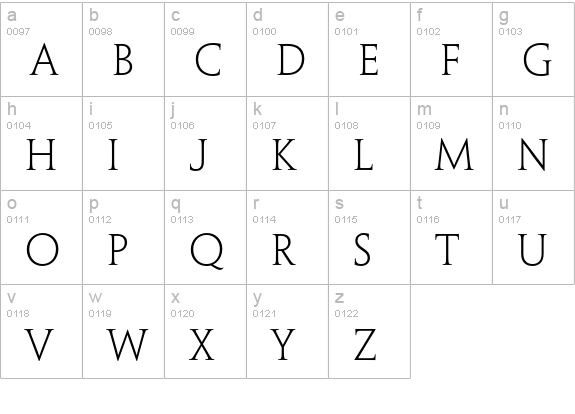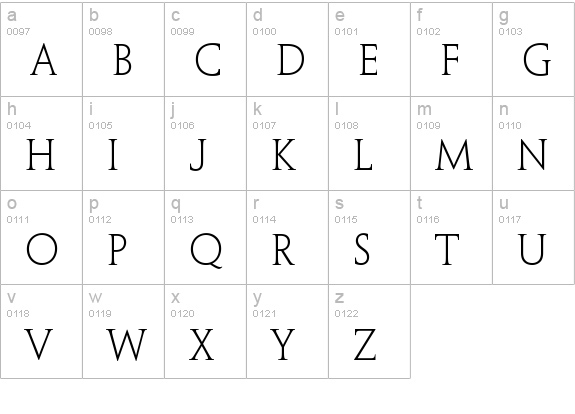
Penumbra Serif Std Light Font Details
Penumbra Serif Std Light is a refined, elegant variant in the Penumbra typeface family \xE2\x80\x94 well suited to elegant body text, refined sub-headings, and luxury branding.
Penumbra Serif Std Light is an elegant and sophisticated font that exudes a sense of timeless beauty. Its delicate serifs and slender letterforms create an air of refinement and grace, making it perfect for projects that require a touch of sophistication. This font's light weight adds a subtle elegance to any design, making it ideal for creating stunning headlines, logos, and branding materials. Its clean and minimalistic aesthetic ensures that it remains legible even at smaller sizes, making it versatile for both print and digital applications. Penumbra Serif Std Light offers a unique combination of classic charm and contemporary appeal. Its smooth curves and balanced proportions make it pleasing to the eye, while its subtle details add a touch of personality. Whether you're designing a magazine spread, a wedding invitation, or a website, this font will effortlessly elevate your project to new heights. The best part? Penumbra Serif Std Light is available for free! You can download it easily at FontsMarket.com, a trusted source for high-quality fonts. With its generous licensing terms, you can use this font for both personal and commercial projects without any restrictions. Don't miss out on the opportunity to enhance your designs with Penumbra Serif Std Light. Download it now and unlock a world of elegance and sophistication for your creative endeavors.